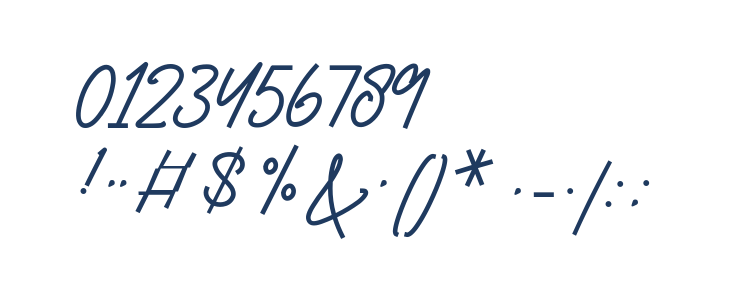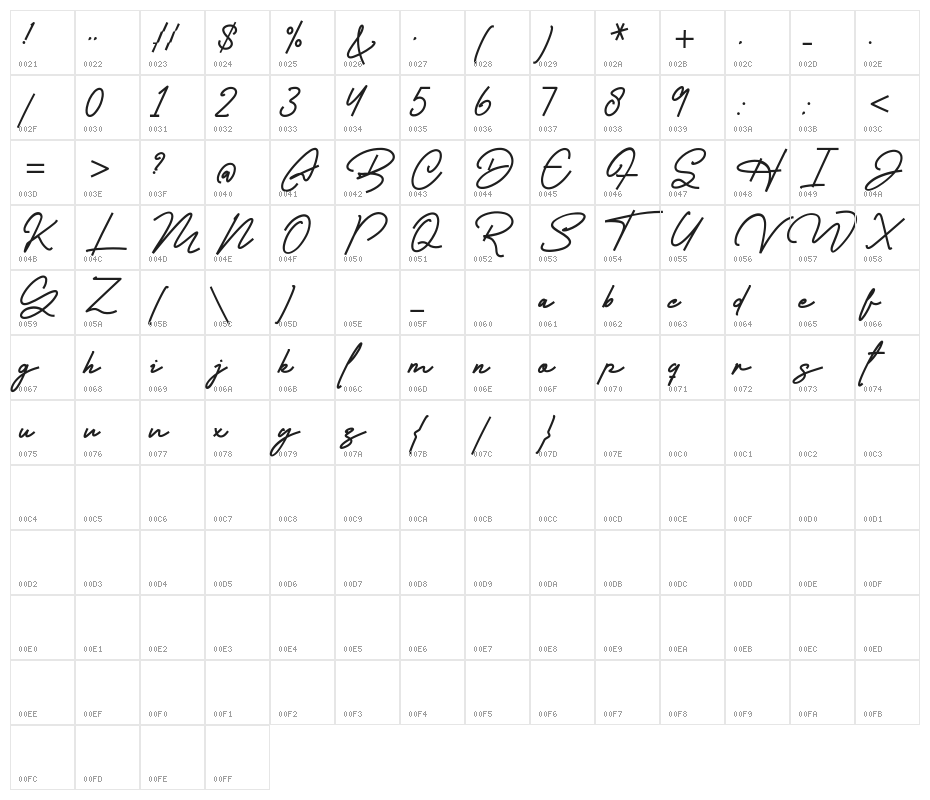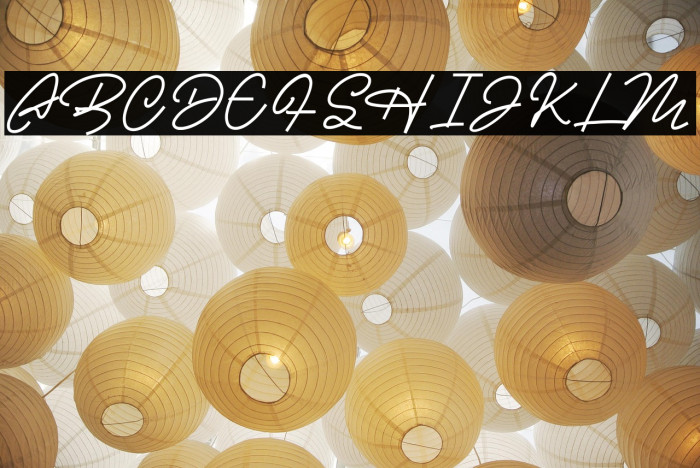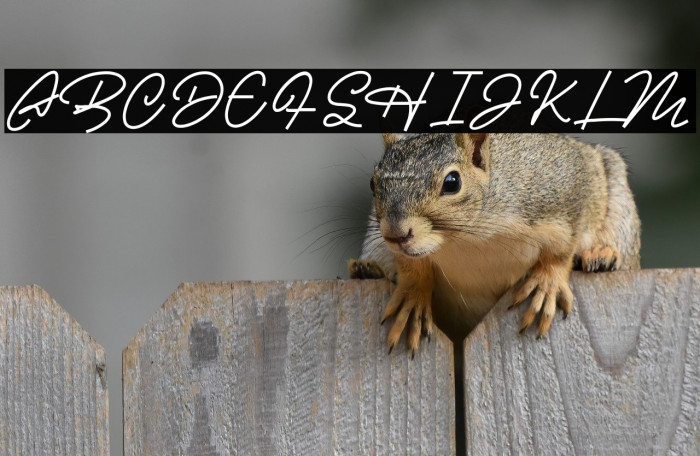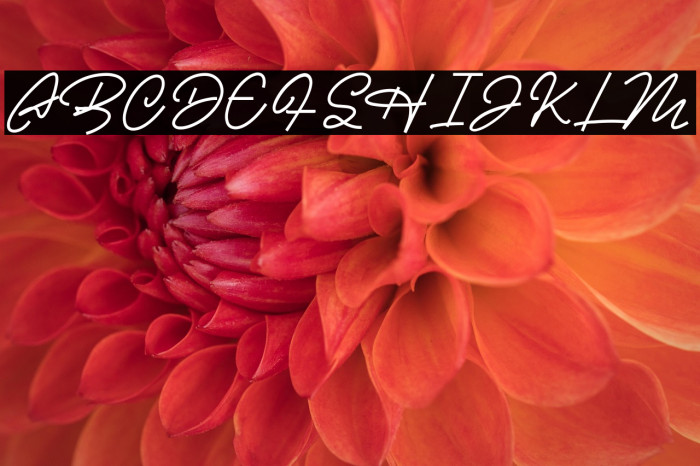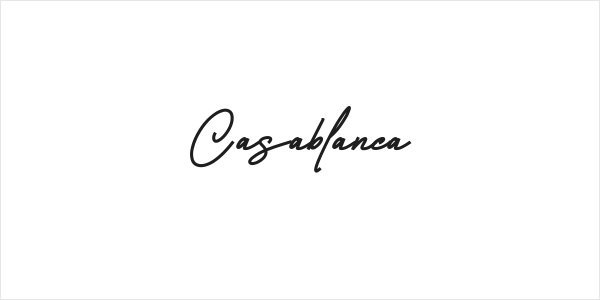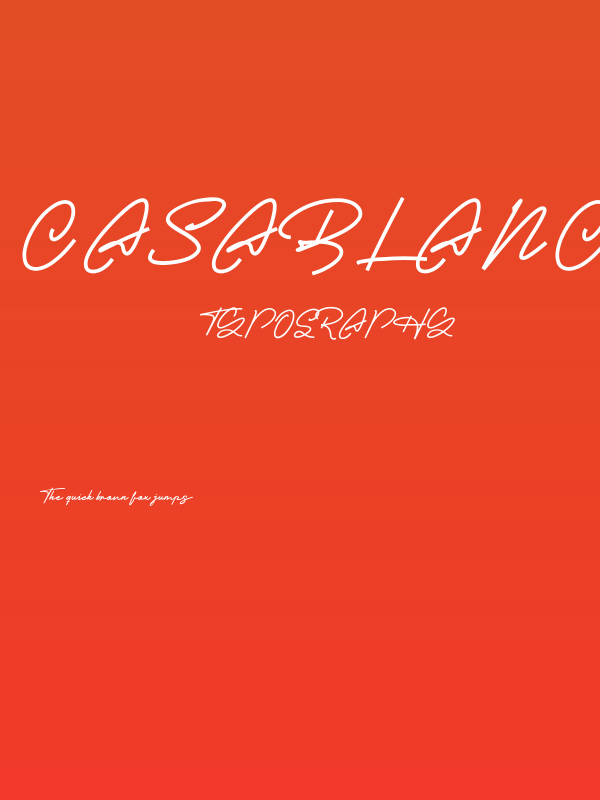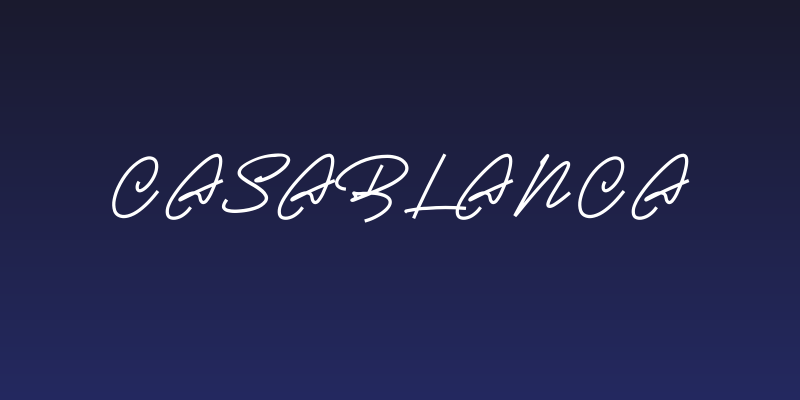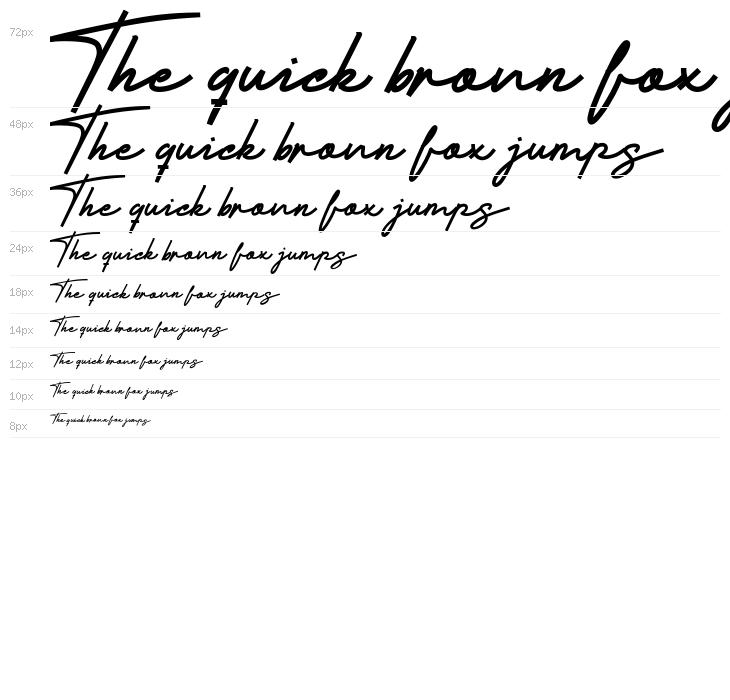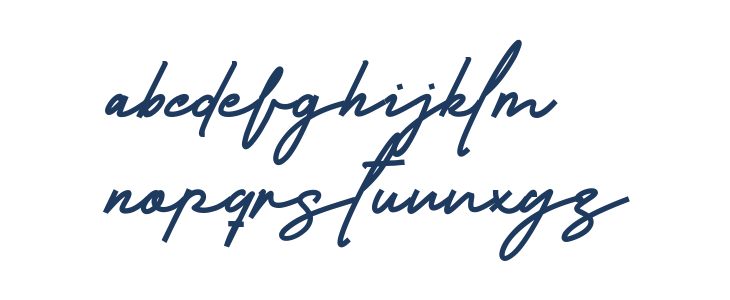
Casablanca Font
Casablanca Description
This font features a flowing, cursive style that mimics elegant handwriting. The uppercase letters are slightly slanted with smooth, continuous strokes, giving them a sophisticated and graceful appearance. The lowercase letters maintain a consistent flow, enhancing the script-like quality. Numbers are clear and legible, with a slight slant that matches the overall style. Special characters are integrated seamlessly, maintaining the font's cohesive look. The design is both stylish and readable, making it suitable for a variety of creative applications.
| Overall Style | Elegant, Handwritten |
| Proposed Projects | Ideal for wedding invitations, greeting cards, personal branding, and elegant packaging designs. |